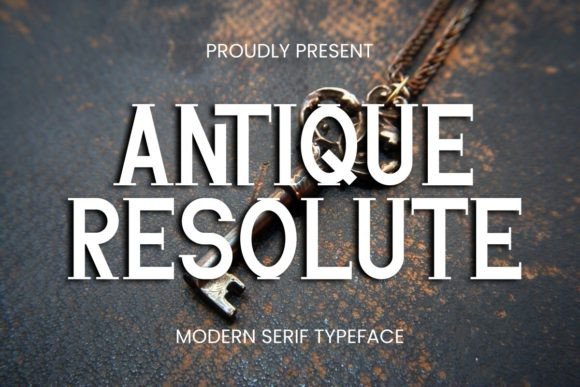
Discover the enchanting Antique Resolute font, a slab serif masterpiece that dances between playful nostalgia and vintage allure. This remarkable font, brought to life by the skilled hands at Masyafi Studio, is the ultimate choice for those seeking to infuse their designs with a captivating retro essence. Whether you're crafting a heartfelt wedding invitation, a timeless logo, or an eye-catching poster, Antique Resolute will elevate your creations with its unmistakable charm.
Step into a world of vintage elegance with Antique Resolute, where classic meets contemporary in perfect harmony. Its bold, slab-like serifs exude a sense of nostalgia, reminiscent of bygone eras. Yet, beneath its vintage exterior lies a touch of modernity, ensuring that your designs remain fresh and relevant. Imagine your wedding invitations adorned with Antique Resolute's refined curves, setting the tone for a truly unforgettable celebration. Picture your brand logo imbued with a timeless sophistication, leaving a lasting impression on your clients.
Antique Resolute is more than just a font; it's a gateway to a world of creative possibilities. Unleash your imagination and let this versatile font guide you through a journey of design exploration. From heartfelt love letters and whimsical greeting cards to bold posters and eye-catching social media graphics, let Antique Resolute be your trusted companion, transforming your words into visual masterpieces.
Embrace the magic of Antique Resolute today and embark on a creative adventure like no other. Let this extraordinary slab serif font ignite your passion and transform your designs into timeless works of art. Join the ranks of creative visionaries who have discovered the power of Antique Resolute and elevate your projects to new heights.